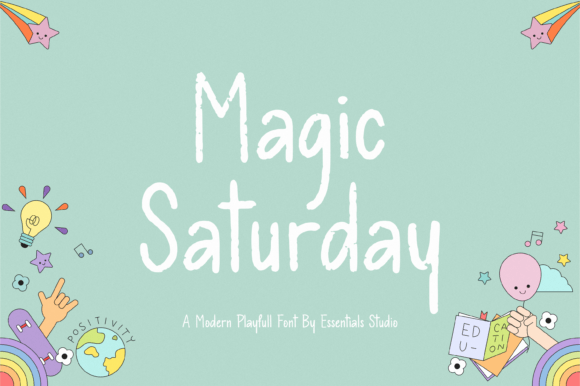
Introducing Magic Saturday, the enchanting display font that will ignite your creativity and make your words dance off the page! Step into a world of playful handwritten charm, where every letter is a stroke of brilliance.
Picture this: a vibrant birthday card that bursts with joy and celebration, each word lovingly crafted in the whimsical lines of Magic Saturday. Or envision a captivating magazine spread that transports readers to a realm of imagination, with headlines that leap from the page and linger in their minds. This font is your canvas, where you can paint your words with a touch of magic and captivate your audience.
Magic Saturday is more than just a font; it's an invitation to express yourself with boundless creativity. Whether you're designing a wedding invitation that exudes elegance or creating social media posts that spark engagement, Magic Saturday will elevate your words to new heights.
With its playful and versatile nature, this font adapts seamlessly to any project. From product packaging that demands attention to branding that radiates personality, Magic Saturday has the power to transform your designs into unforgettable masterpieces.
So why settle for ordinary fonts when you can embrace the extraordinary? Download Magic Saturday today and unlock a world where your words will dance, inspire, and leave a lasting impression. Let your creativity take flight and immerse yourself in the captivating charm of Magic Saturday!